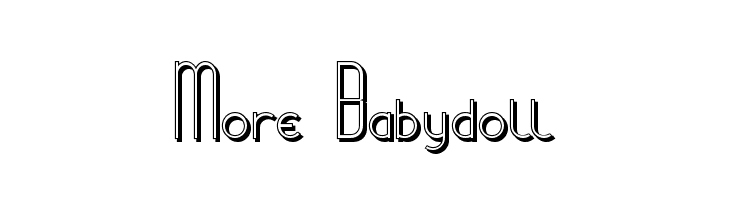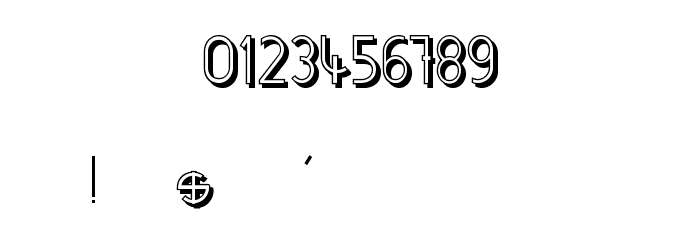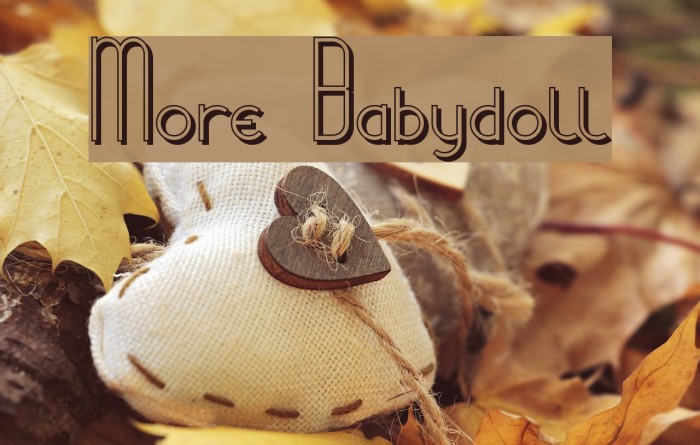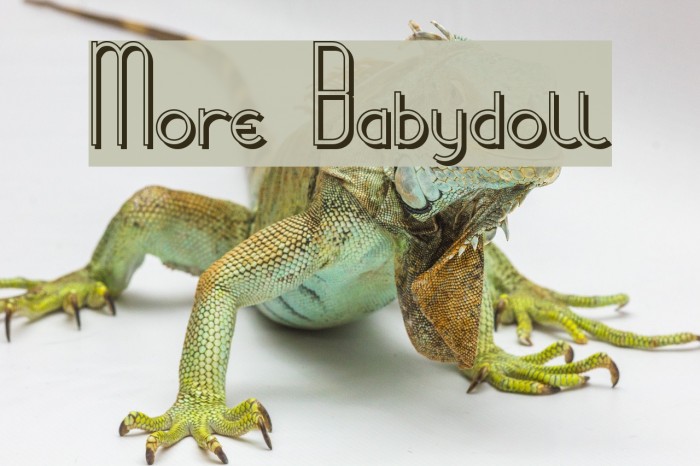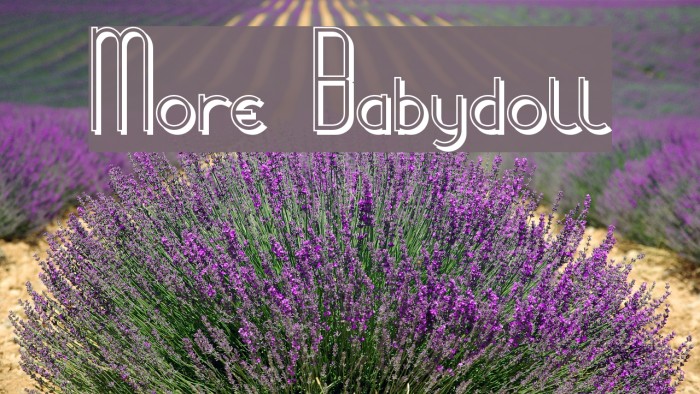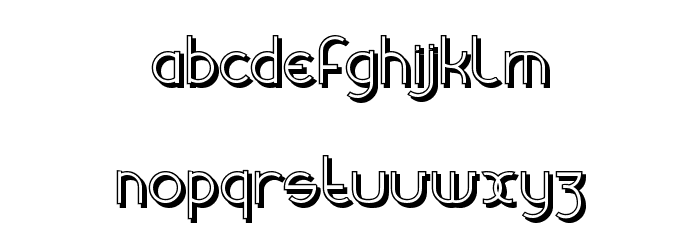
More Babydoll Font
This font features a unique and modern design with a distinct outline style. The uppercase letters are tall and narrow, with a geometric flair that gives them a futuristic appearance. The lowercase letters maintain a similar style but are more rounded and approachable. The numbers are consistent with the overall design, offering a cohesive look. Special characters are creatively integrated, adding to the font's versatility. The double-line effect creates a sense of depth and dimension, making it ideal for eye-catching designs.
A modern, outlined font with a geometric and futuristic style.
• Proposed Projects: Ideal for branding, posters, headlines, and any design project that requires a modern and striking appearance.
• Category: Decorative/Display
• Width: Condensed
• Contrast: Low
• Overall Style: Modern
• Use Case: Headlines, Logos, Posters